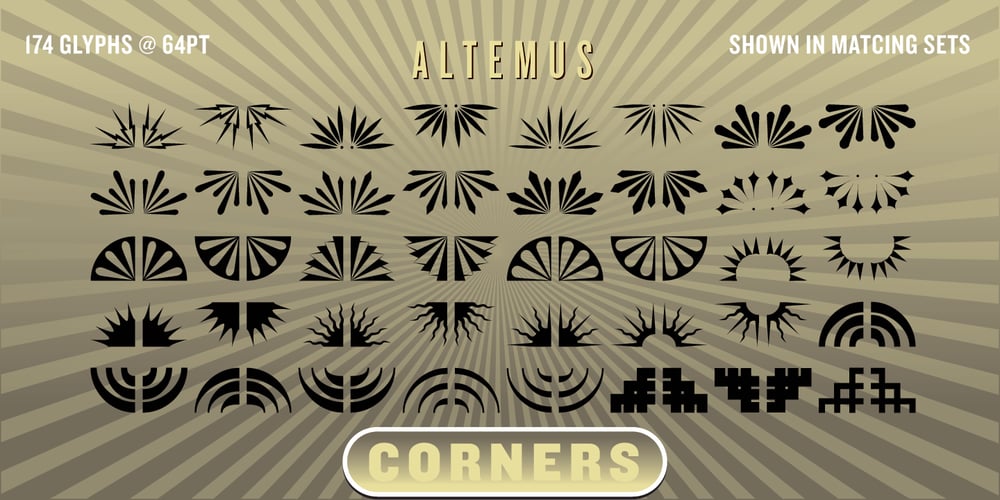
Altemus Corners
Altemus Corners font
Altemus Corners Font Family was designed by Robert Altemus and published by Altemus Creative. Altemus Corners contains 1 styles and family package options. A collection of 174 corner deco, geometric, fan, palm and arc designs.